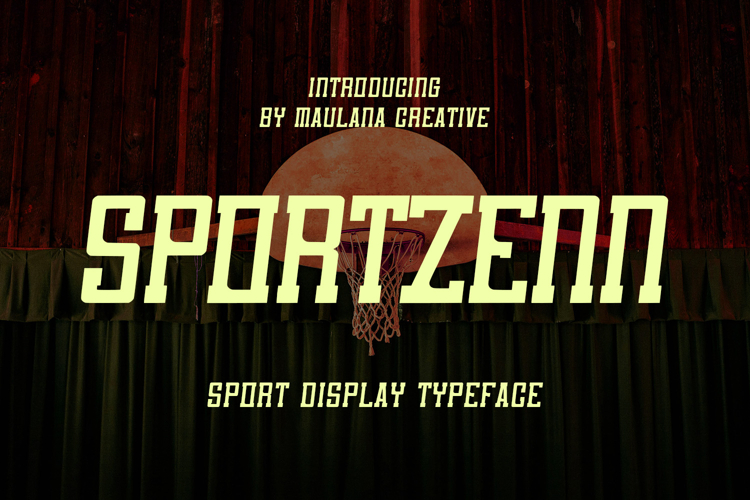
Sportzenn Bold Athletic Sport Display Typeface
Sportzenn is a high octane display typeface designed to capture the raw energy and competitive spirit of the sporting world. With its blocky, condensed structure and sharp slab serif accents, it evokes the classic feel of varsity jerseys and stadium scoreboards while maintaining a modern, aggressive edge.
This font is built for impact, making it the perfect choice for team branding, sports event, athletic, and fitness themed social media content. It includes a full set of uppercase characters, numbers, and unique decorative ligatures (alternates) that allow for customized, professional level typography. Whether you're designing for basketball, tennis, or high intensity training, Sportzenn delivers a "game-winning" aesthetic every time.
- Full Character Set: Includes a complete uppercase alphabet.
- Ligatures: A dedicated set of ligature characters for creative customization.
- Full Numeric & Punctuation Support: Includes all standard symbols and numbers.
- Multilingual Support: Ready for global use with a wide range of accented characters and special symbols.